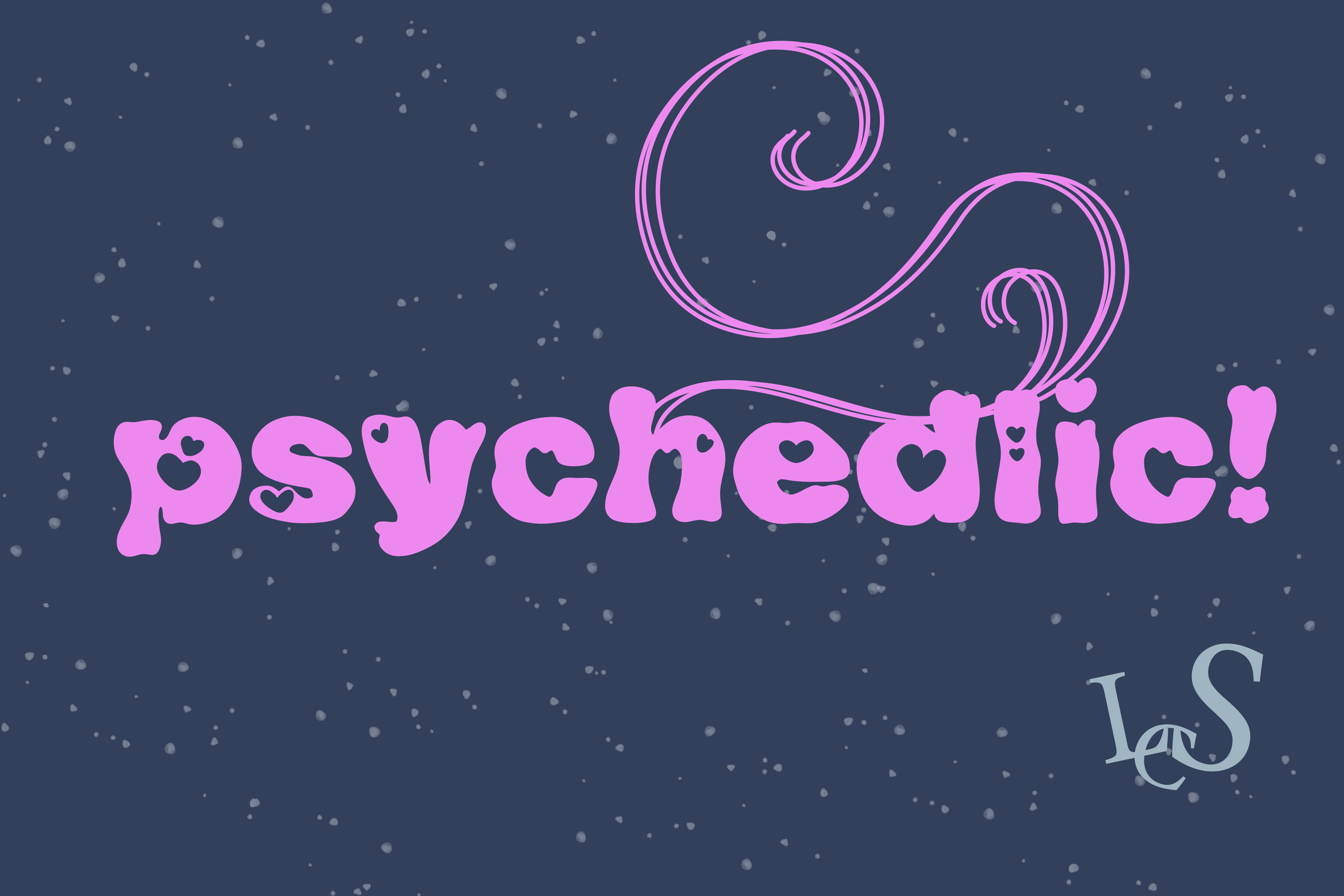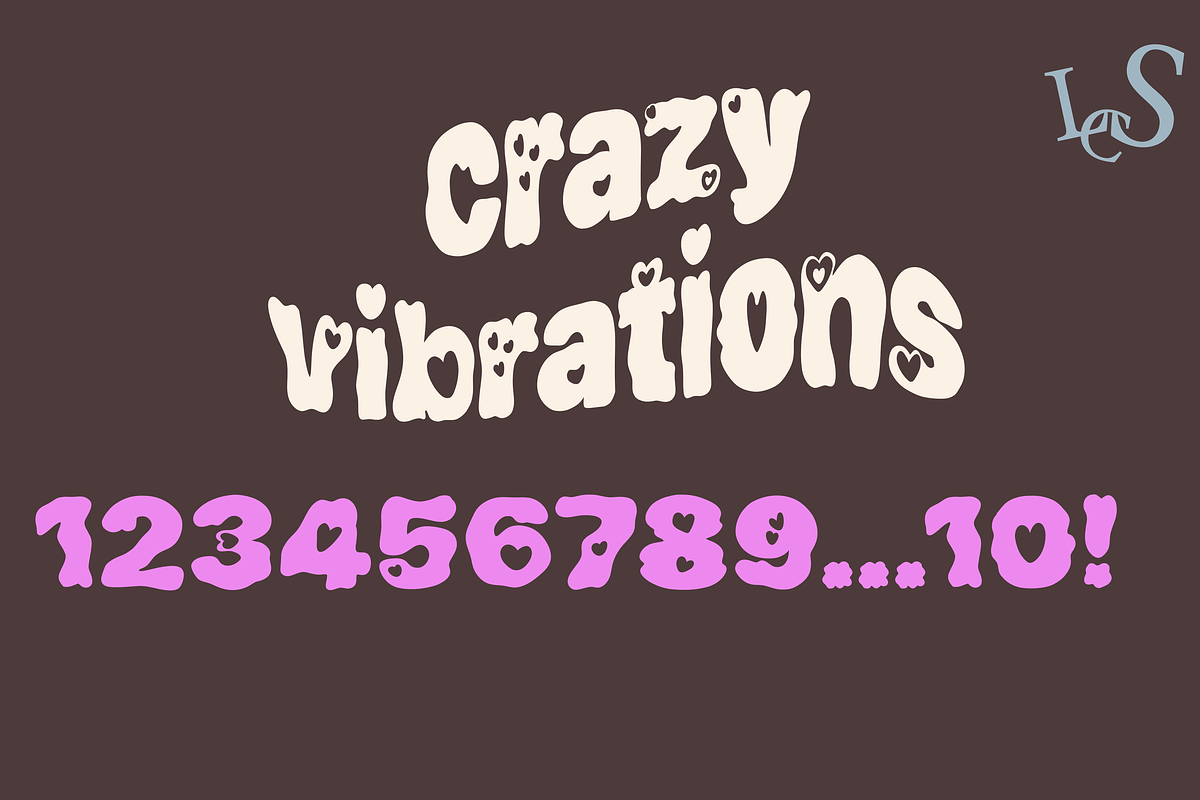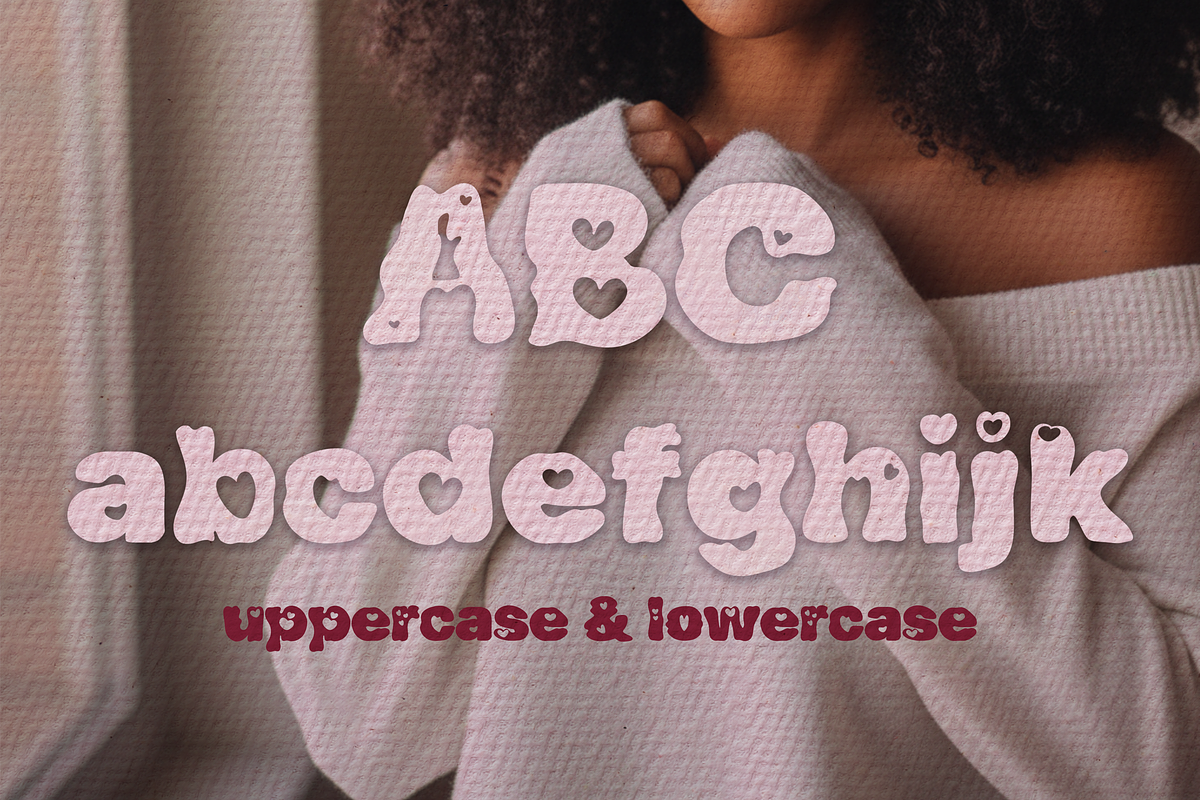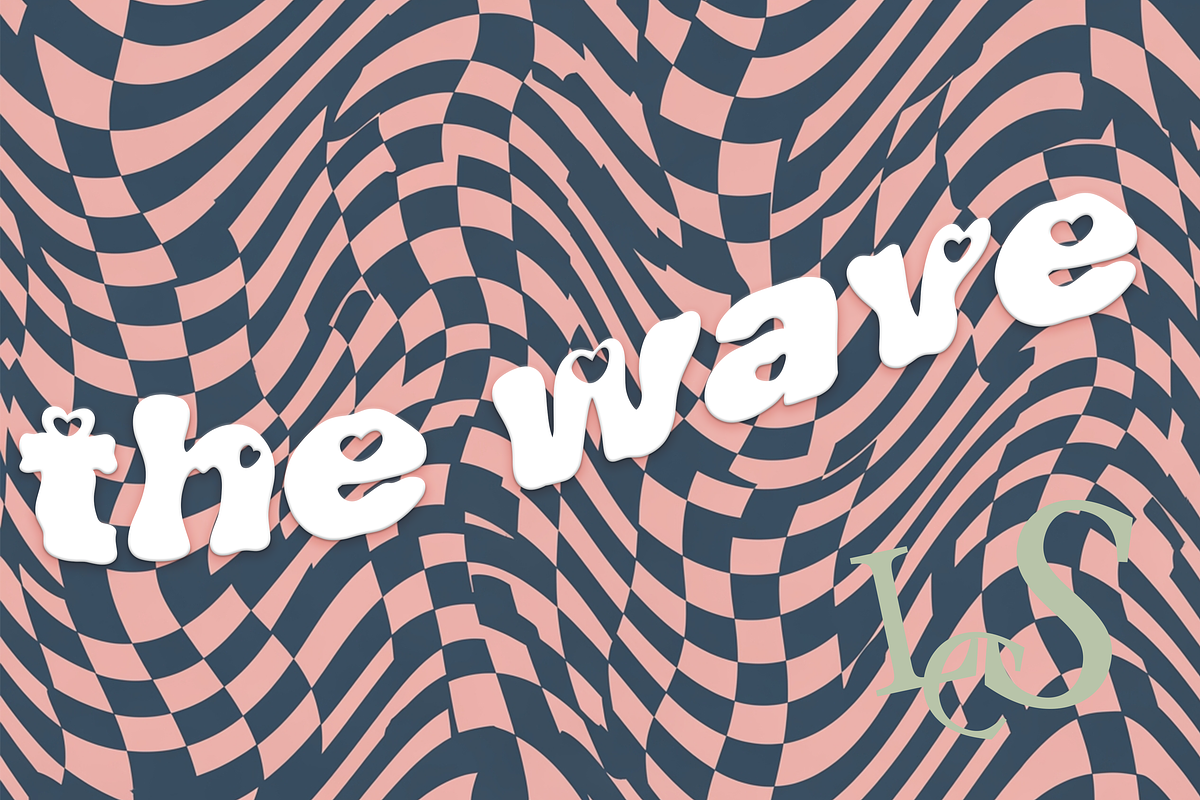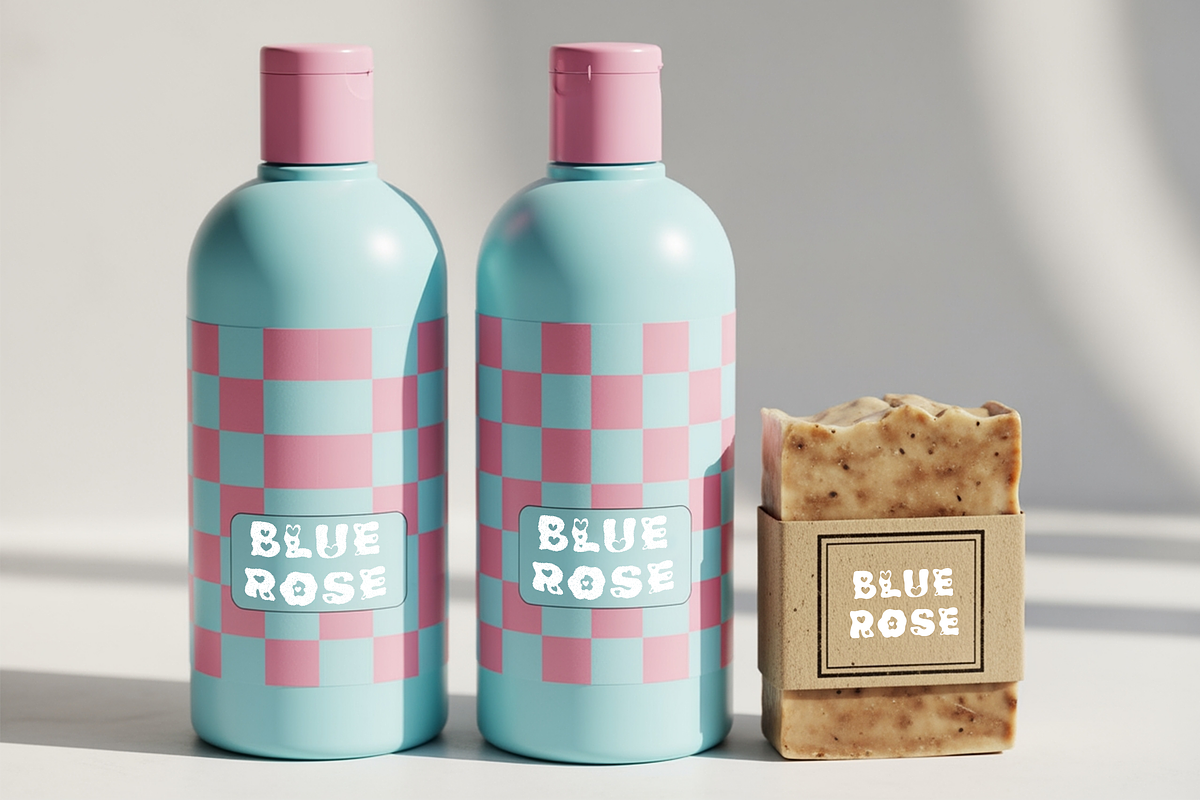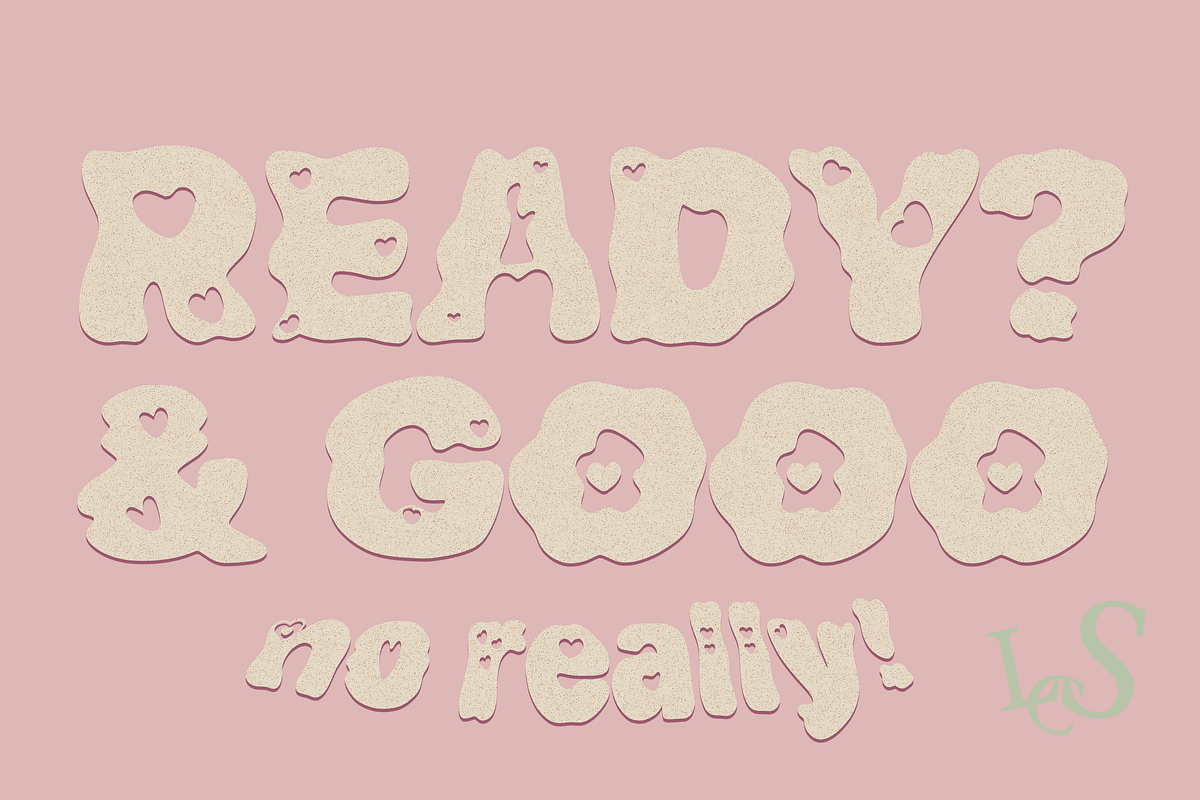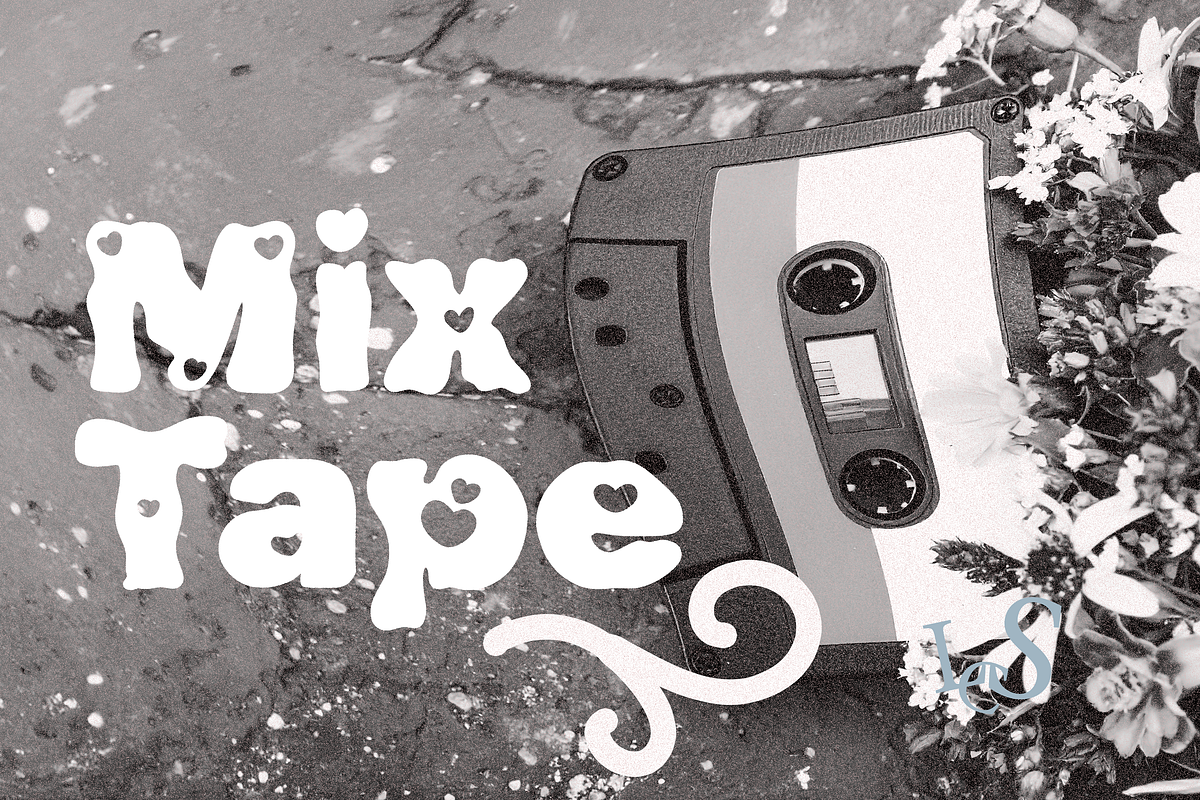
Psychedelic Heart Retro Bubble Font
Psychedelic Heart, a display font designed with a touch of playful, 70s charm. Inspired by the bubbly, hand-drawn lettering on vintage album covers and street art. The goal was to create a font that feels both nostalgic and modern—one that's bold and easy to read, with a warm, friendly personality. Its soft, rounded edges and thoughtful heart details make it a gentle way to make your work stand out. We think it's a quiet, beautiful companion for your creative process.
- Characters: Full uppercase and lowercase letters (A-Z)
- Numbers & Punctuation: A complete set of numbers (0-9) and essential punctuation.
Suggested Uses
- This font has a clear, open feel, making it a great choice for:
- Social media graphics or quotes
- Friendly logos and branding
- Retro-style t-shirt or sticker designs
- Posters and flyers
- Website headers